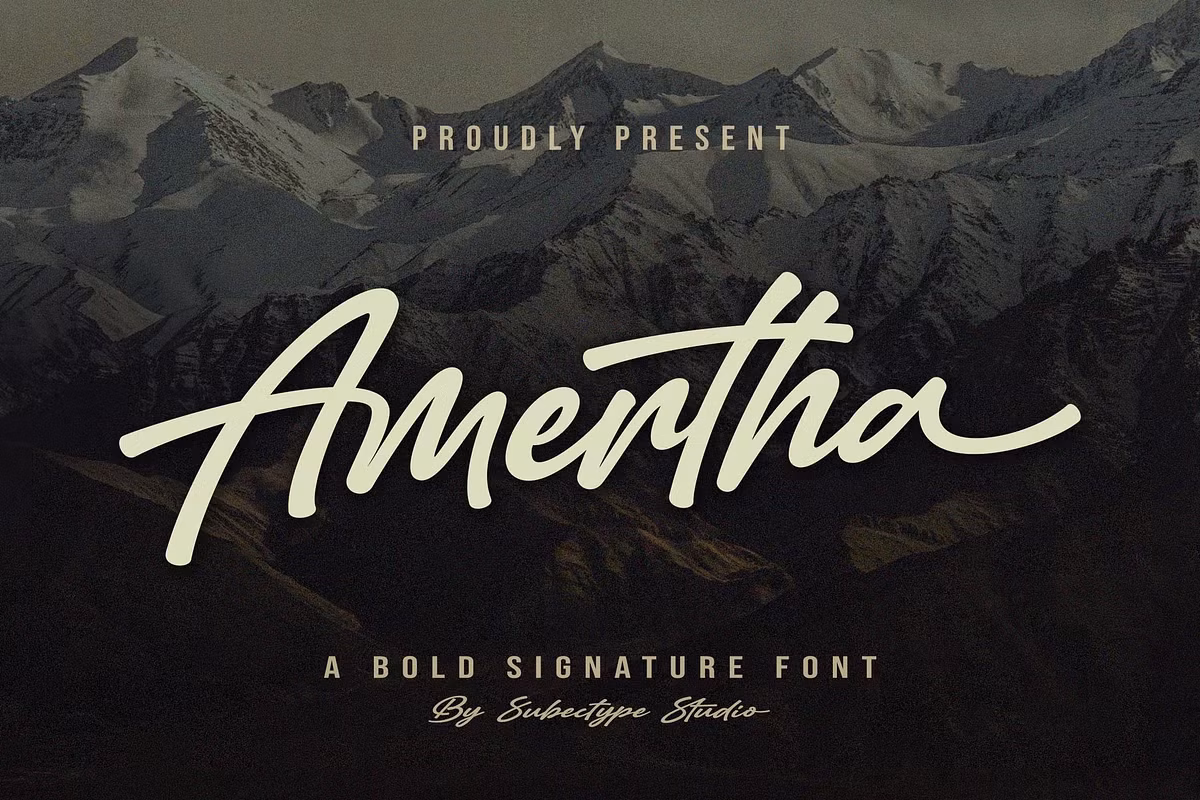
Amertha - Bold Signature Font Free Download
Add elegance and confidence to your designs with Amertha - Bold Signature Font Free Download. This striking script font features bold, fluid strokes that emulate a natural signature, making it perfect for logos, branding, invitations, personal stationery, and social media graphics that need a touch of sophistication and flair.
Amertha offers a modern, handwritten style with a strong personality, featuring clean curves and smooth connections between letters. It includes uppercase and lowercase letters, numerals, punctuation, and stylistic alternates, ideal for testing out high-impact and personalized layouts.